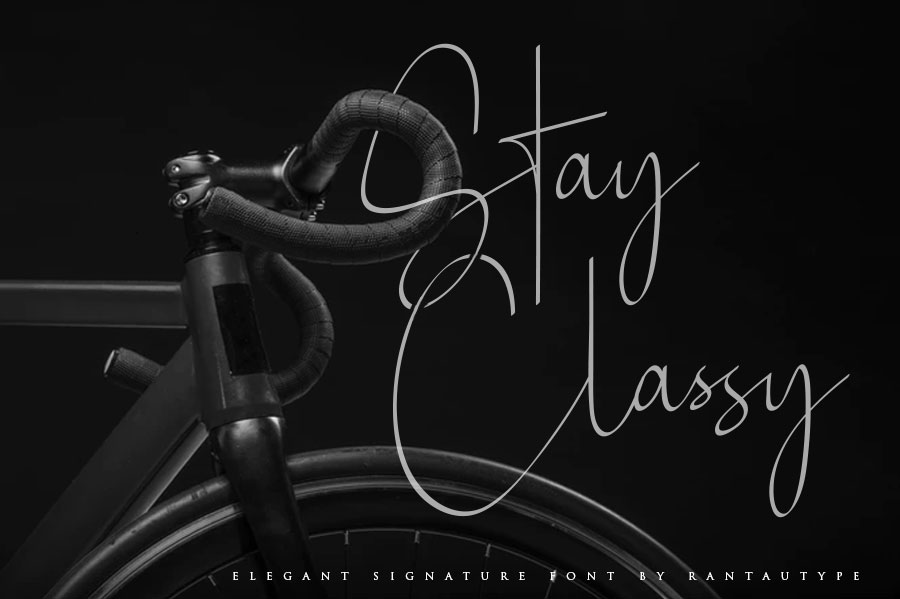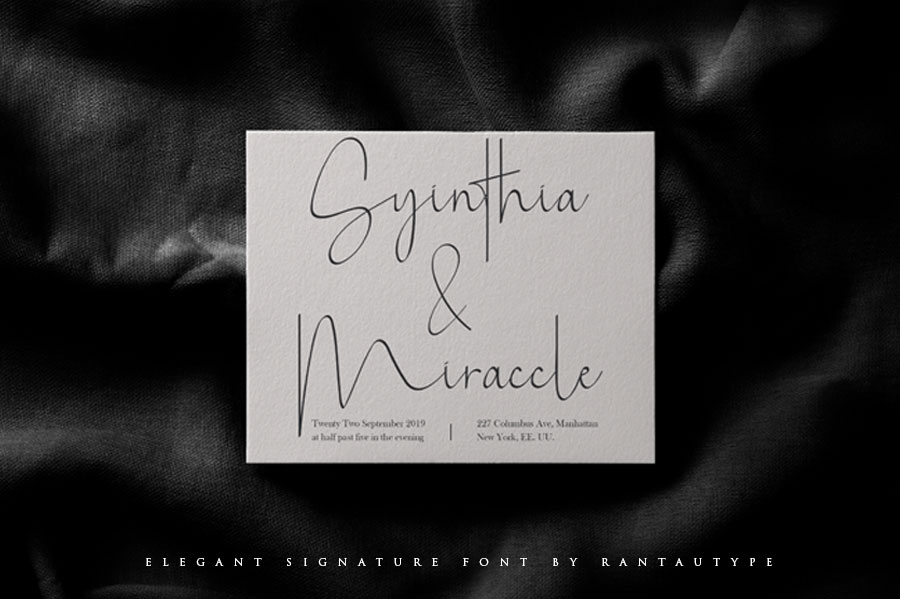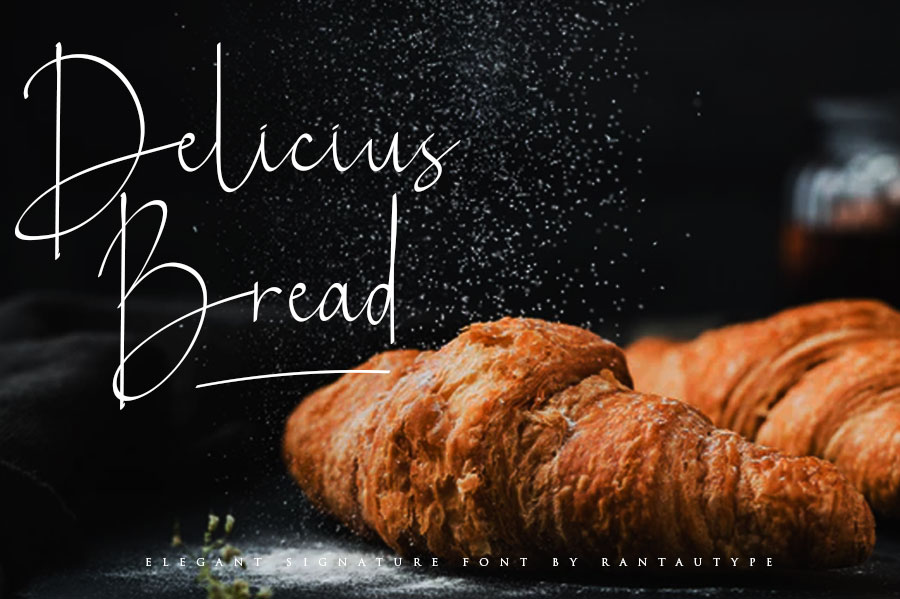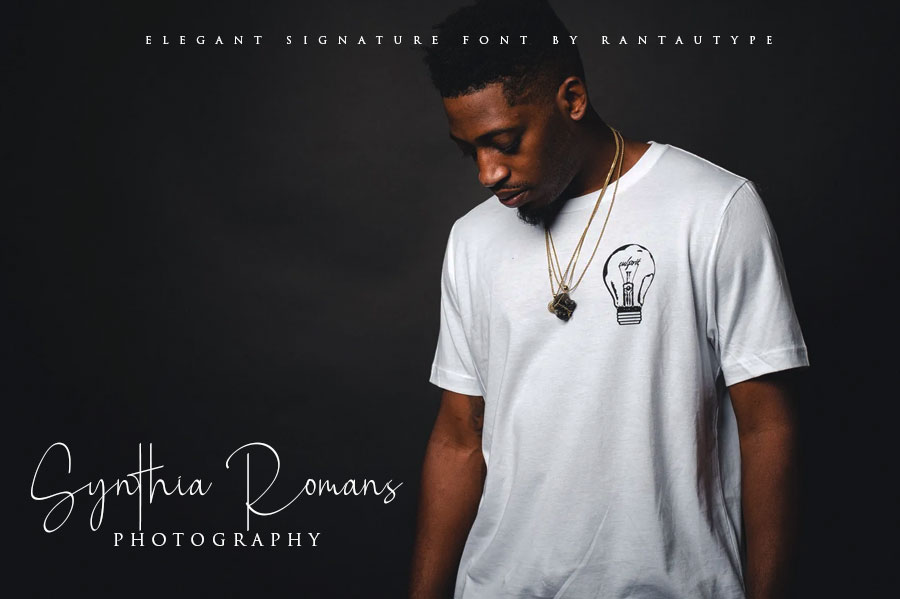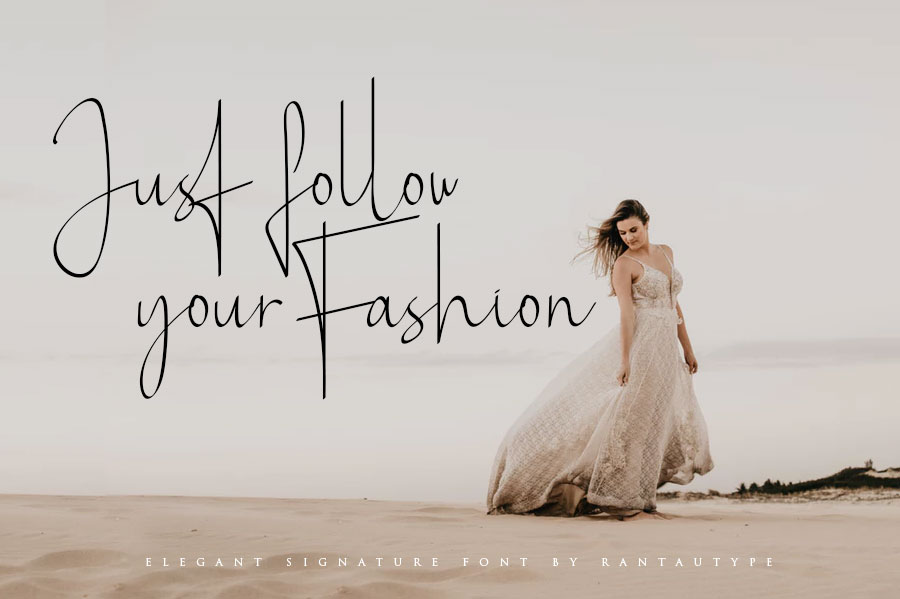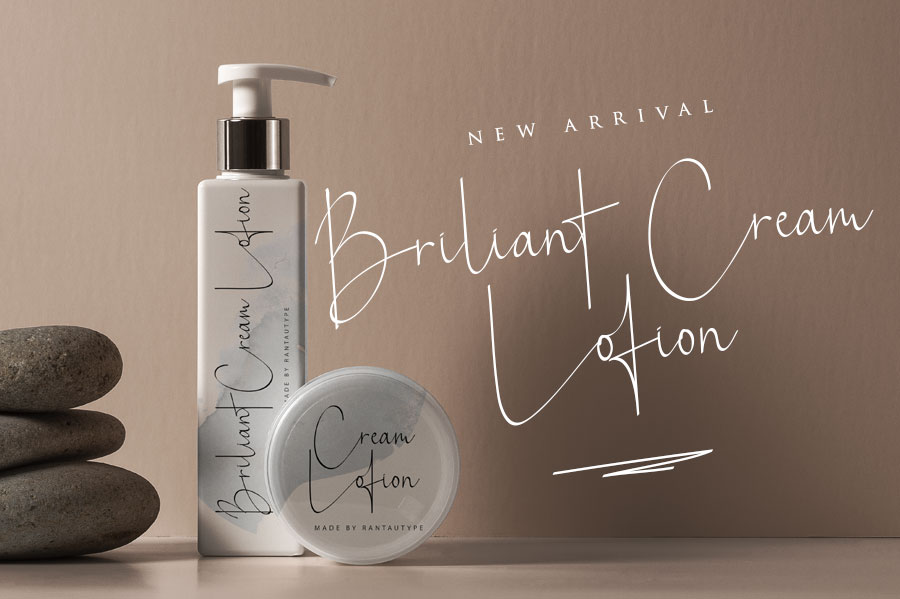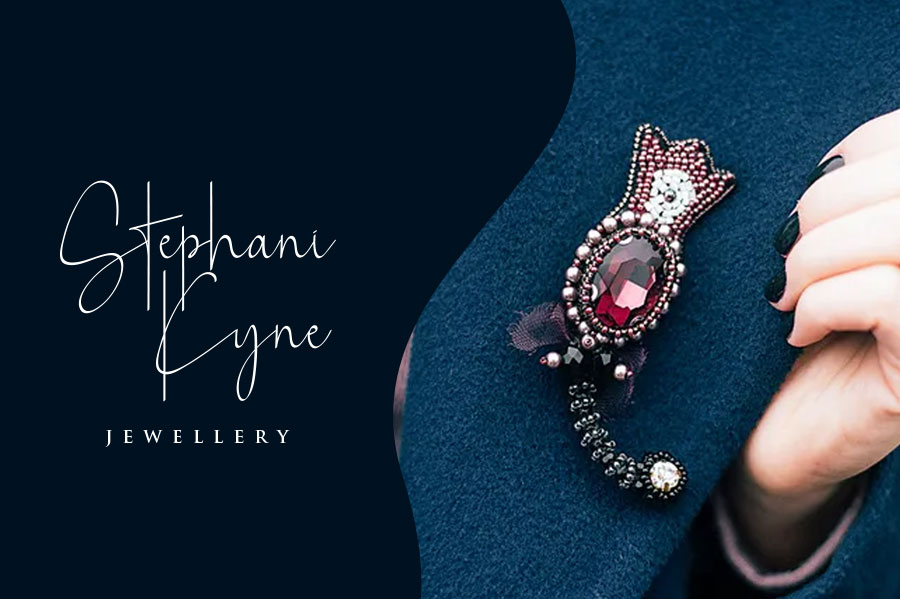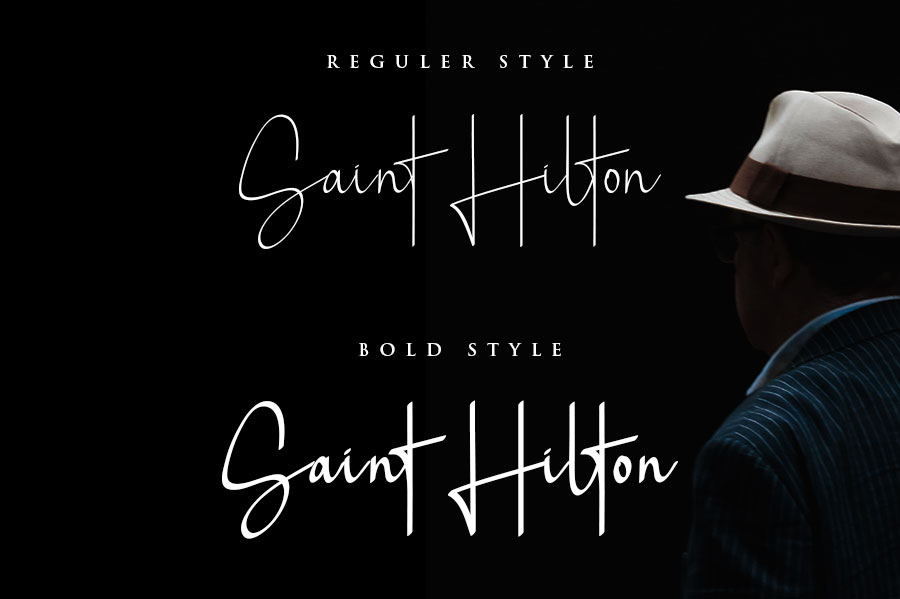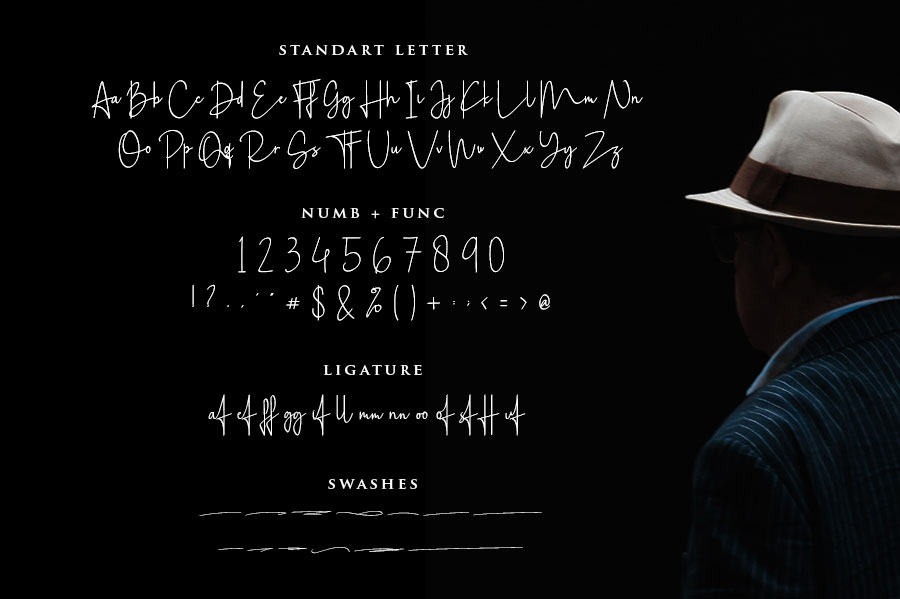
Saint Hilton Handwritten font
Saint Hilton is a stylish font with elegant scratch. It is perfect for branding ,wedding invitation and cards and for any other branding project. Saint hilton also have 2 font.
Saint Hilton is a perfect choice for any creative endeavor, chic, lifestyle design such as logos, advertisements, watermark on photography, stationery, branding project, display and magazine, invitation, corporate brand, product design, label, business project and many other project need elegant taste.
• Standard glyphs
• Swashes